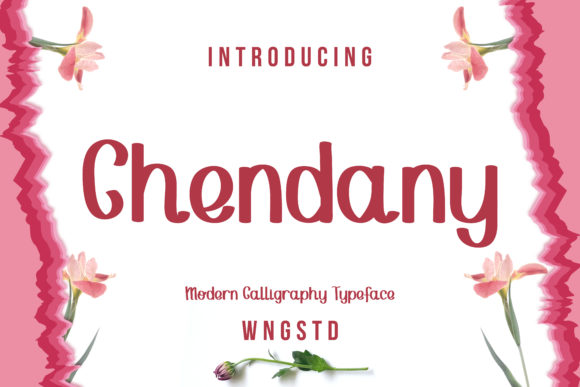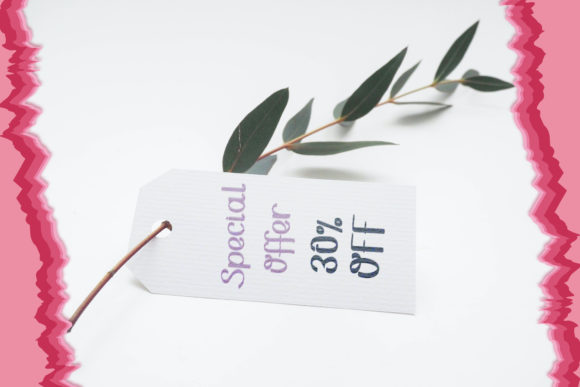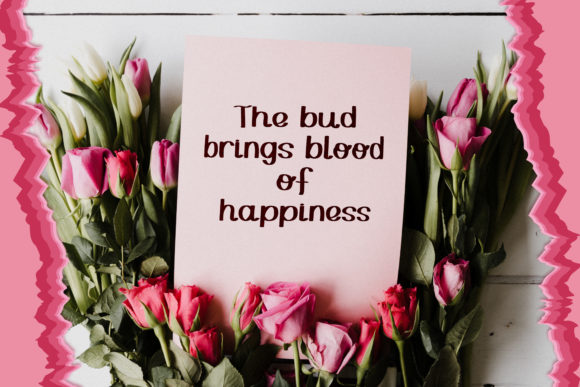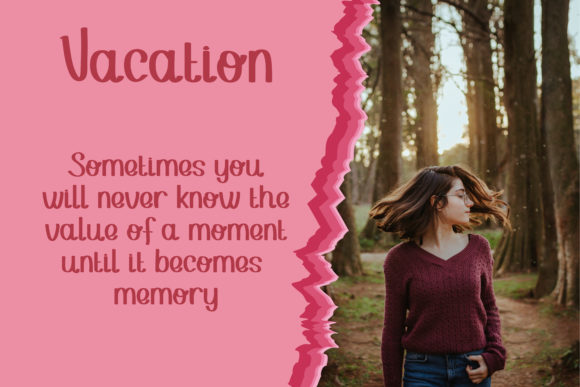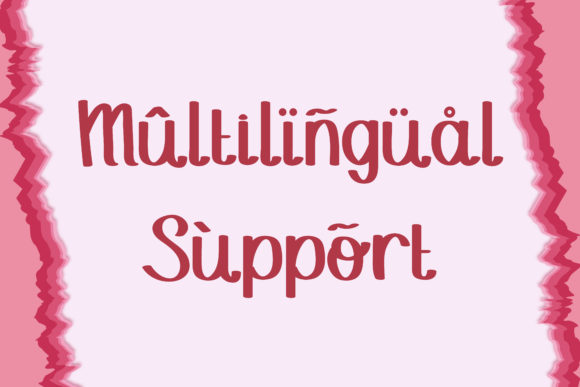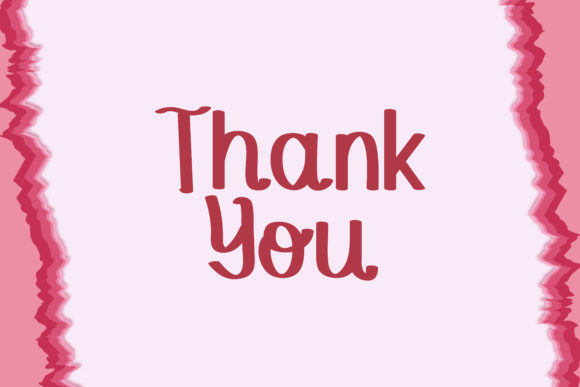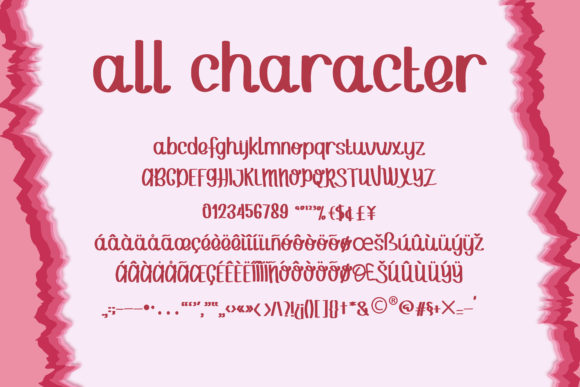
Chendany Font
About Chendany Font
Chendany is a friendly, neat and cute looking handwritten font. Not too thin and not too thick, balanced and varied, this font was designed to enhance the beauty of your projects.